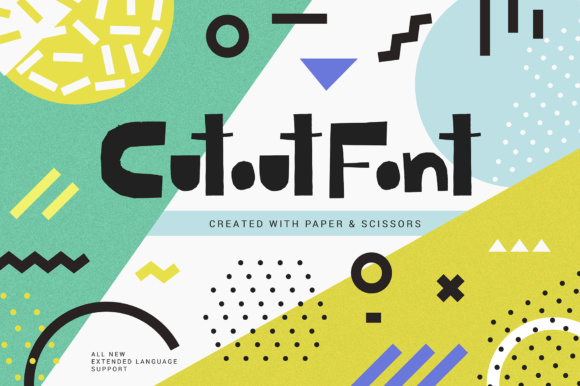
Unleash your creativity with Cutout Font, the striking display font that captivates attention and ignites your designs. This font is not just a tool, it's an art form, meticulously crafted with organic edges that dance across your creations. Imagine your posters, book covers, apparel designs, and any canvas you choose adorned with Cutout Font's bold presence. It's more than a font; it's a statement, a declaration of your unique style and vision.
Dive into the depths of Cutout Font's versatility. Its bold strokes and organic essence bring life to your words, transforming them into captivating works of art. Whether you're a seasoned designer or just starting your creative journey, Cutout Font is your perfect companion. Witness the jaws drop as your designs captivate audiences, leaving an imprint of elegance and originality.
And as a special bonus, you'll receive an additional cutout textures font, your secret weapon for adding mesmerizing textures to your designs. With just a few clicks, you can elevate your creations with stunning textures that bring depth and dimension to your work. Unleash your imagination and let Cutout Font's captivating charm weave its magic through your designs. Embrace the boldness, embrace the organic beauty, and embrace the Cutout Font experience. Your creative journey awaits!